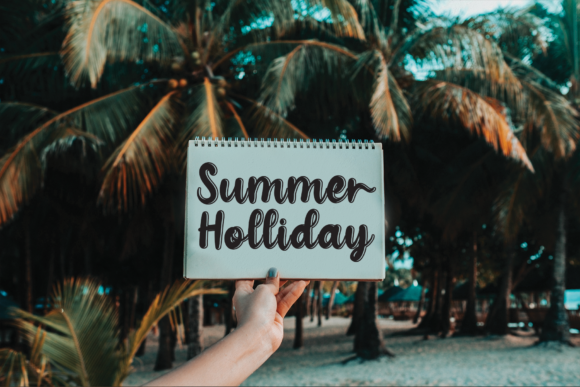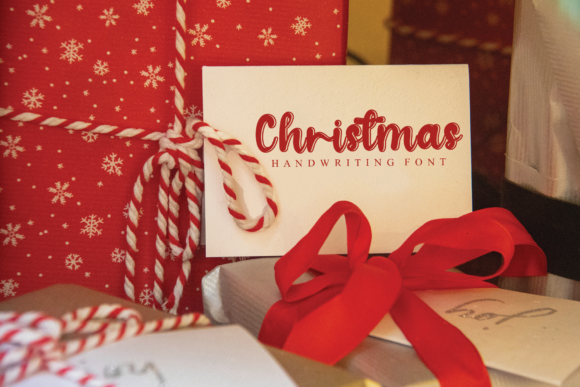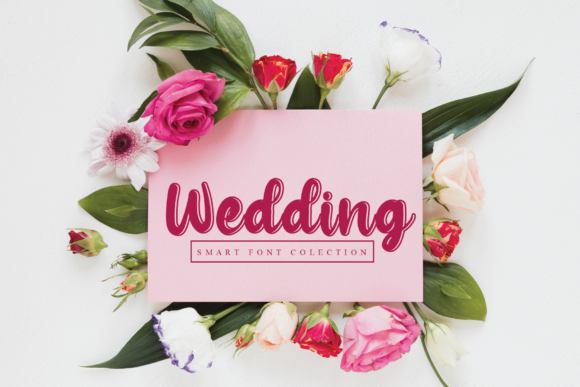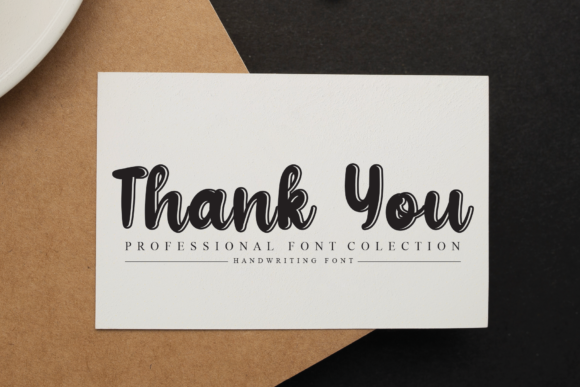
Introduction to Holiday Weekend Font
Do you remember the moment when your creative idea hits you, and you can’t wait to bring it to life? It’s like a spark of inspiration that ignites your passion, and you’re eager to start designing. For many of us, it’s a moment of pure excitement and joy. One of the key elements that can elevate your creative project from ordinary to extraordinary is the right font. In this article, we’ll explore the wonders of the Holiday Weekend Font, a sweet handwritten font that’s perfect for adding a personal touch to your designs.
Key Features of Holiday Weekend Font
- High-quality design resource ideal for creative projects, offering a unique and festive atmosphere.
- Designed with a modern and playful style, perfect for adding a touch of fun to your designs.
- Size: Supports a wide range of font sizes, from small captions to large headings, making it versatile for various design needs.
- Perfect for use in holiday-themed projects, such as greeting cards, posters, and social media graphics, adding a festive touch to your creative project.
Honest Review: Holiday Weekend Font
I recently stumbled upon the Holiday Weekend Font while searching for a design resource to spice up a creative project. I was immediately drawn to its playful and festive vibe, making it perfect for projects centered around summer or seasonal celebrations.
- Festive and playful vibe, perfect for summer or seasonal projects
- High-quality lettering that translates well across different screen resolutions
- May not be suitable for formal or professional projects
- Limited character set, which may not be ideal for longer texts
Overall, I’m impressed with the Holiday Weekend Font, and I’d definitely recommend it for creative projects that require a lighthearted and festive touch. Just be mindful of its limitations, and you’ll be all set to add a pop of personality to your designs.
The Holiday Weekend Font is perfect for designing creative projects such as social media graphics, flyers, posters, and brochures. It’s also great for personal use, such as making invitations or party decorations. With its unique and eye-catching design, this font is sure to make your project stand out.